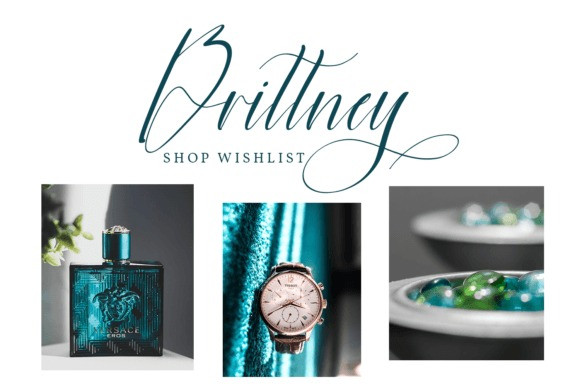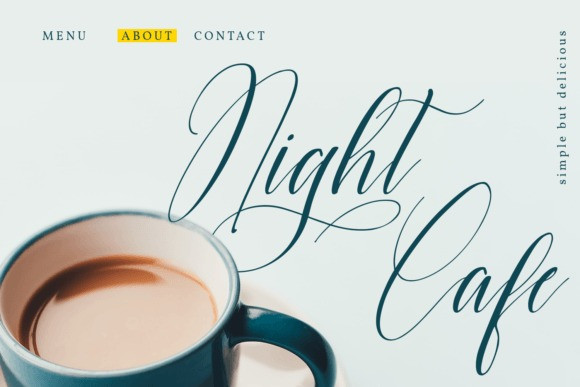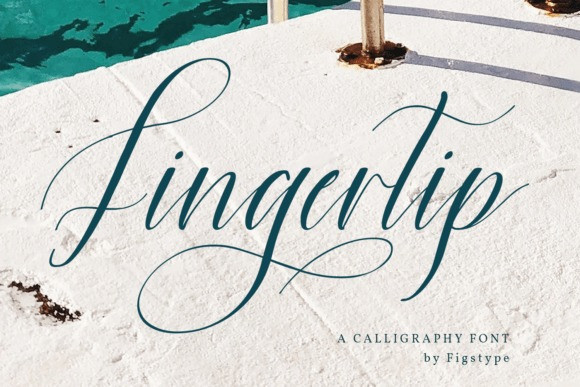
Fingertip Font
Fingertip Font, a captivating calligraphy font that embodies modern sophistication. With its sleek and fluid style, this font effortlessly blends the art of handwriting with contemporary design. Its meticulously crafted letterforms strike a perfect balance between delicate curves and bold strokes, creating exquisite visual harmony.
With three swash variations, “Fingertip” offers an added touch of flair, allowing you to infuse your text with captivating embellishments. Whether used in wedding invitations, branding projects, or logo designs, this font’s modern charm and timeless elegance will elevate any creative endeavor to new heights.